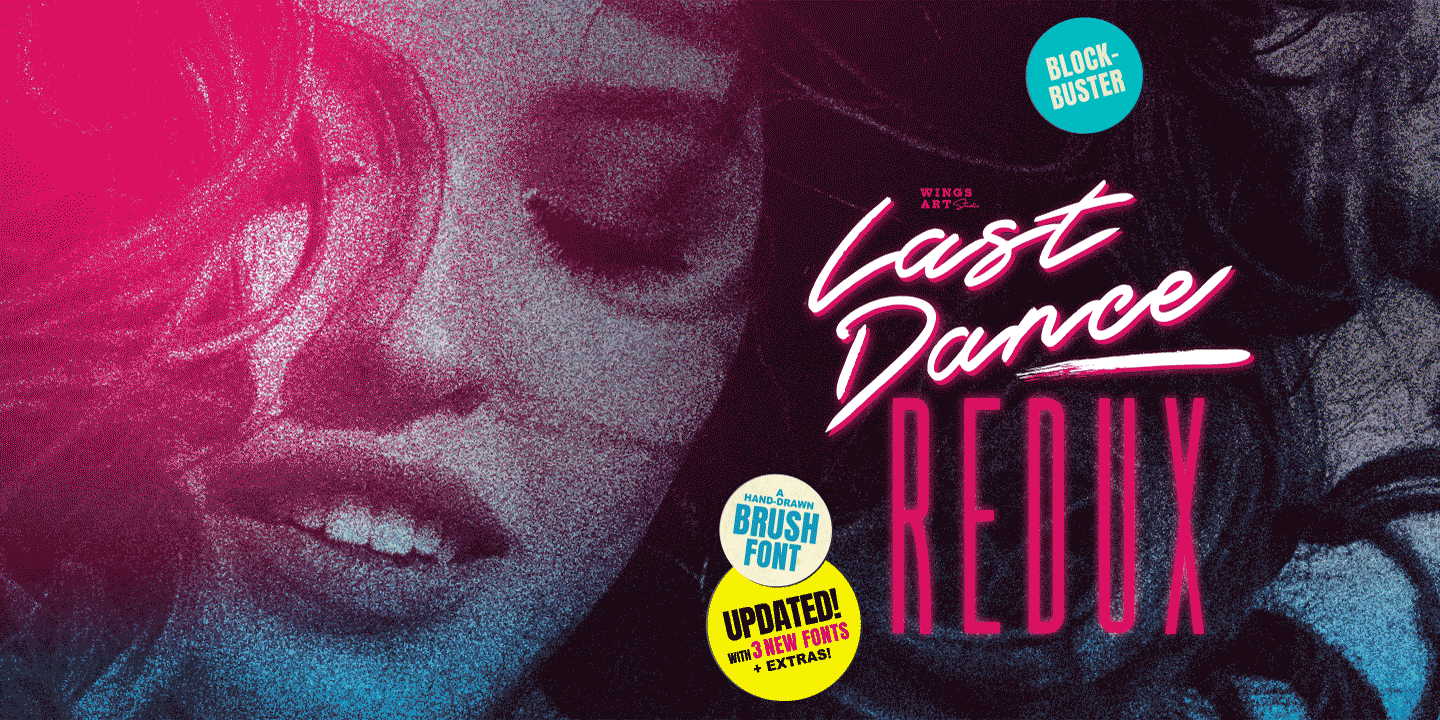
The Last Dance Font Free Download is ideal for retro posters, movie titles, branding, and social media graphics, evoking an 80s-inspired, cinematic aesthetic.
This font is exciting because its bold, hand-drawn brush script captures the nostalgic vibe of 80s movie posters and VHS covers with a gritty, feel-good charm.
The Last Dance family includes Regular, Alternative One, Alternative Two, and Underlines styles, offering versatile design options.
Relive the 80s with the Last Dance Font Free Download, a brush-script typeface designed by Christopher King and published by Wing’s Art Studio. Inspired by retro movie posters and VHS covers, Last Dance features a gritty, hand-drawn texture perfect for creating cinematic headlines, logos, or nostalgic branding. With four styles—Regular, two alternates, and underlines—it supports uppercase, lowercase, punctuation, numerals, and multilingual characters. Available in OTF, TTF, and WOFF formats, it ensures crisp rendering across print and digital platforms. As 2025 design trends embrace vibrant, retro typography, downloading Last Dance Font Free Download keeps your work bold and nostalgic. Test it today at myfonts.com to explore its cinematic potential, and consider purchasing for commercial use to fully leverage its dynamic style.